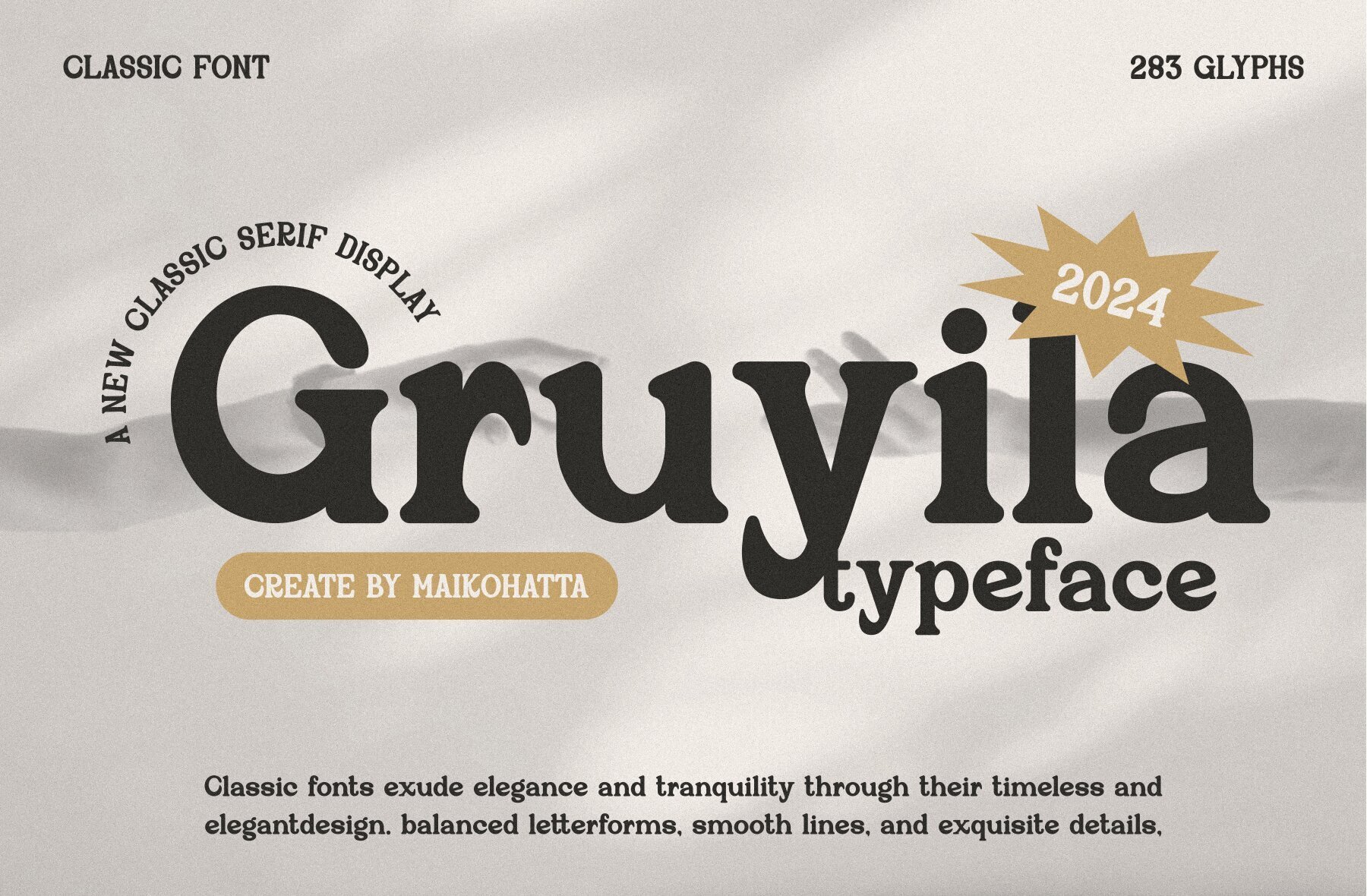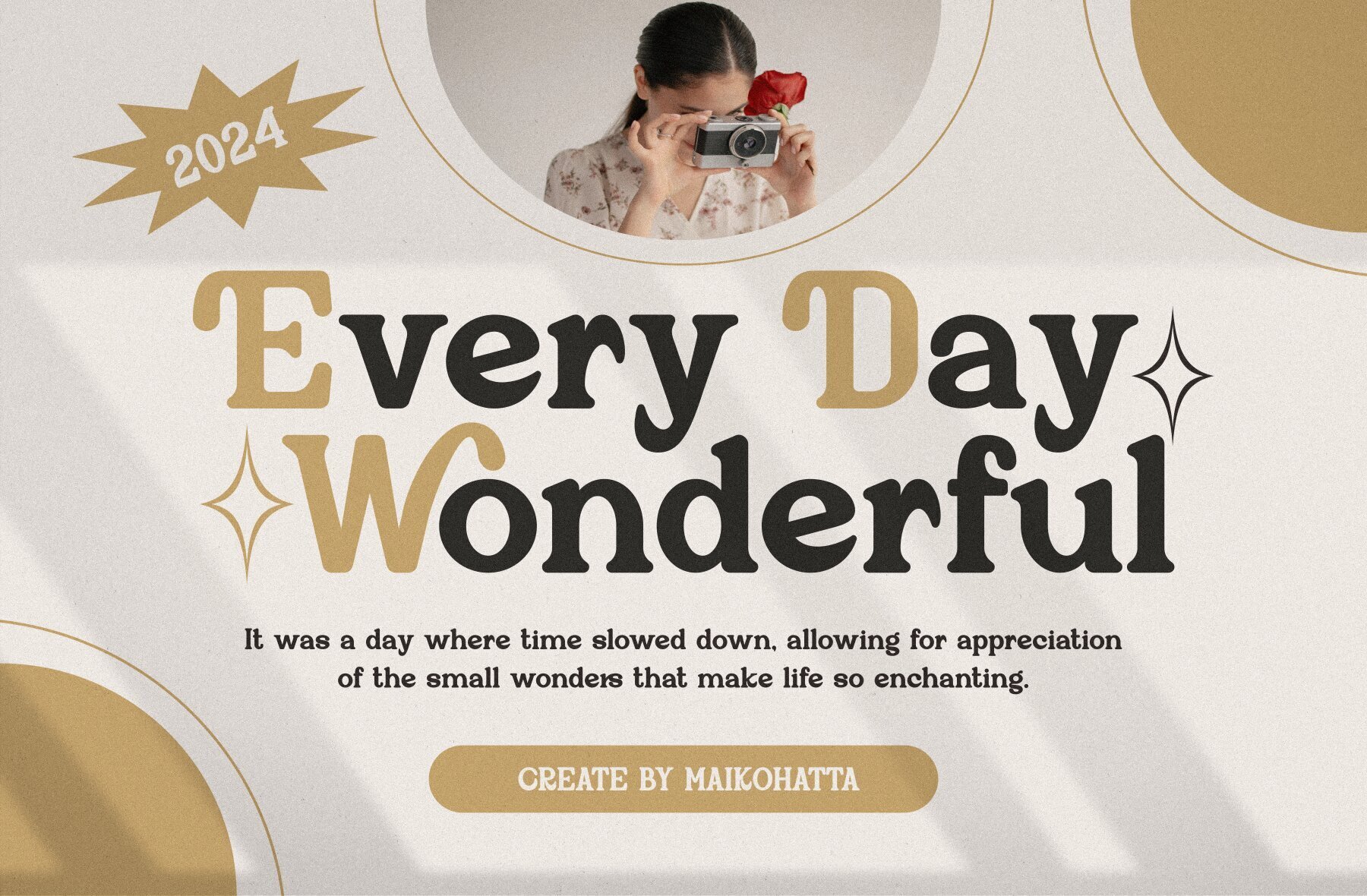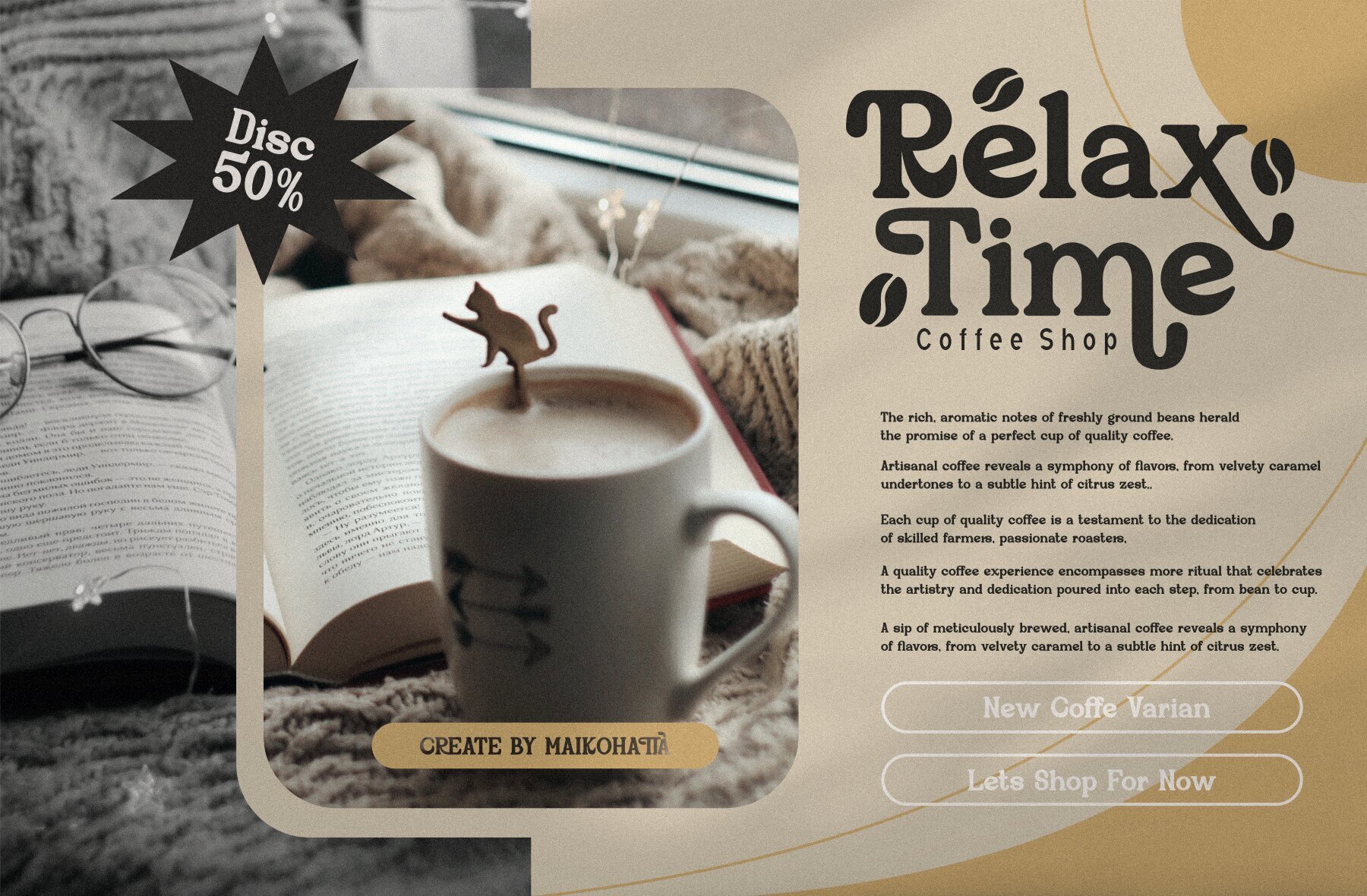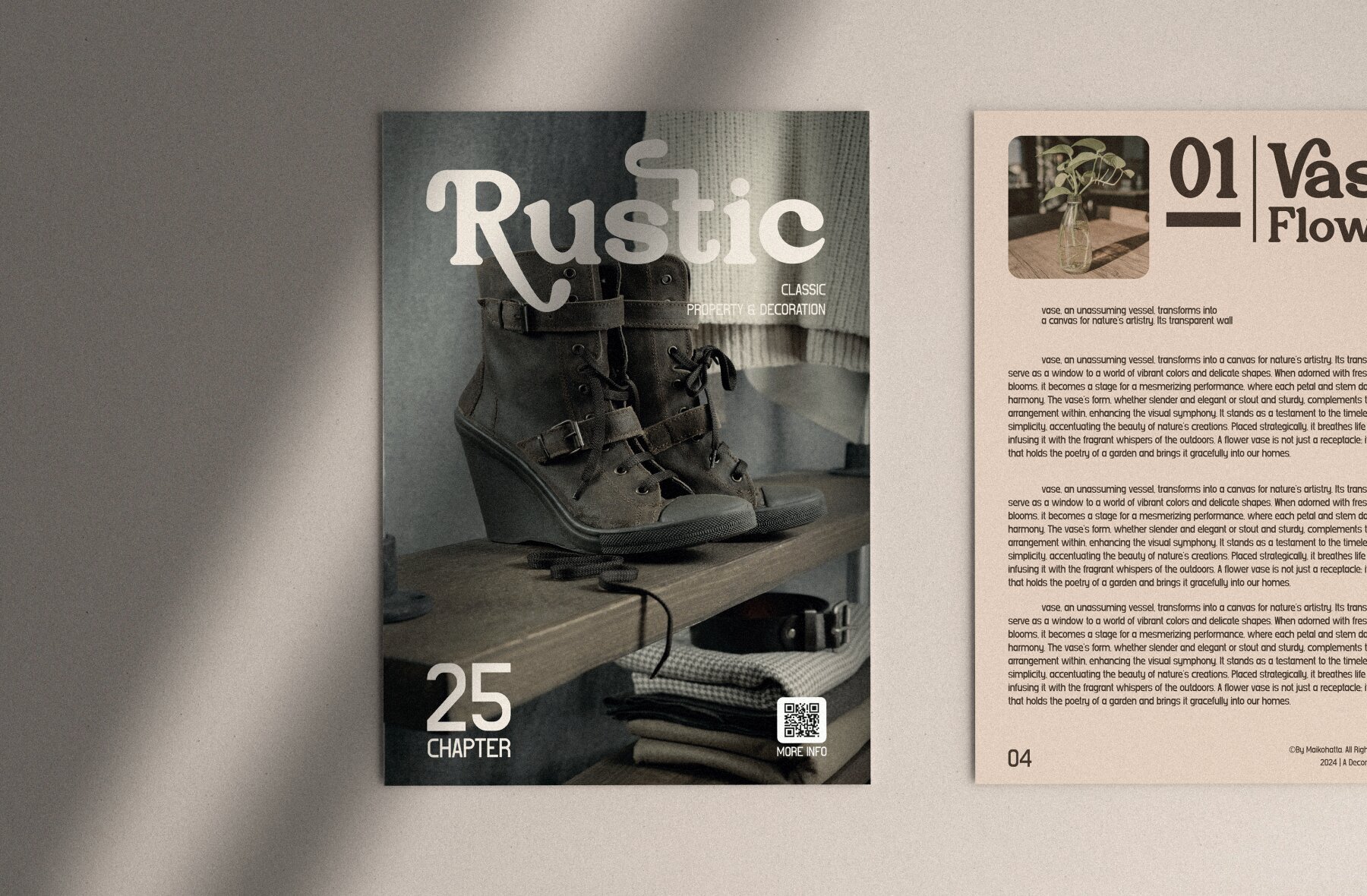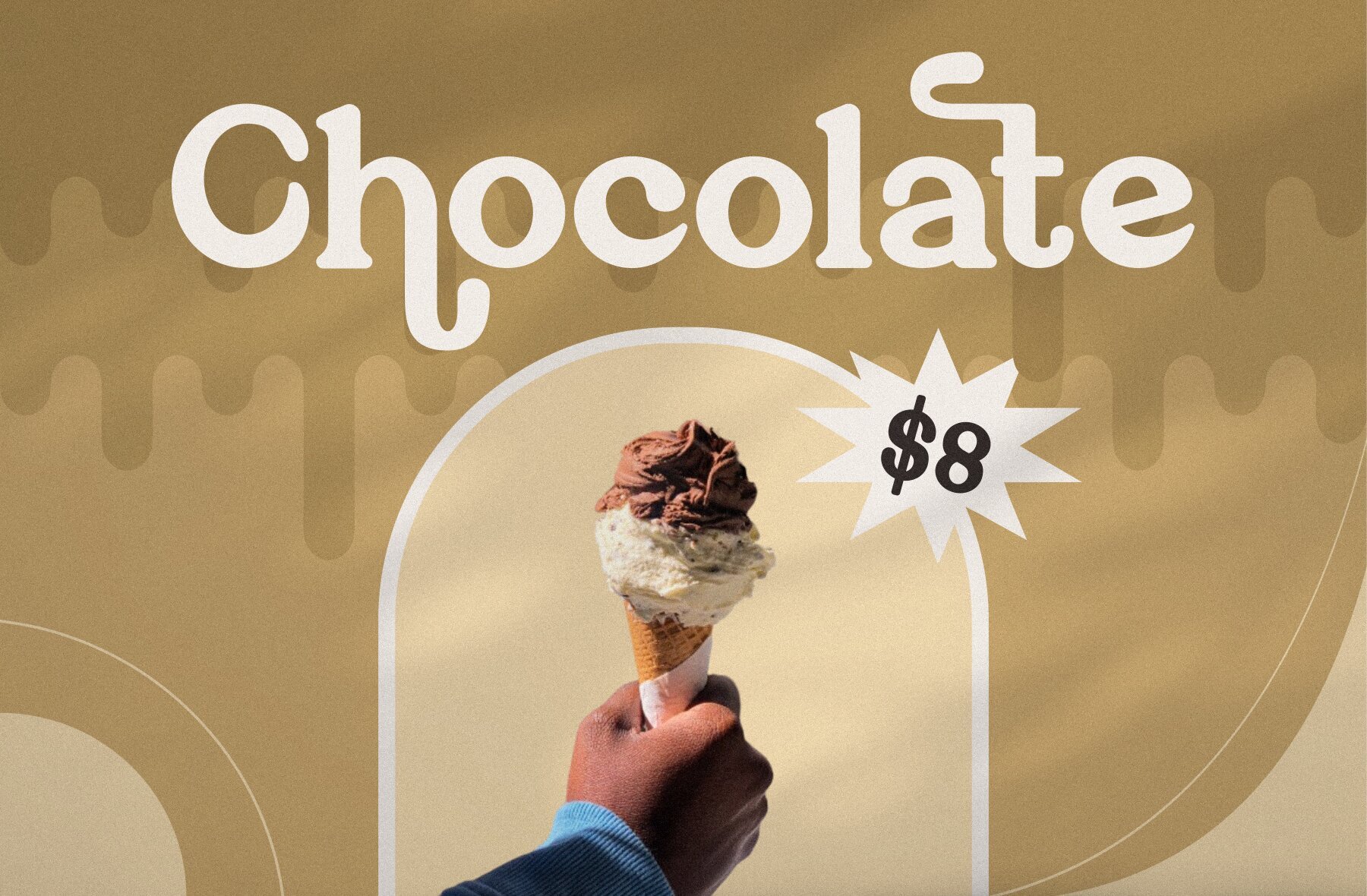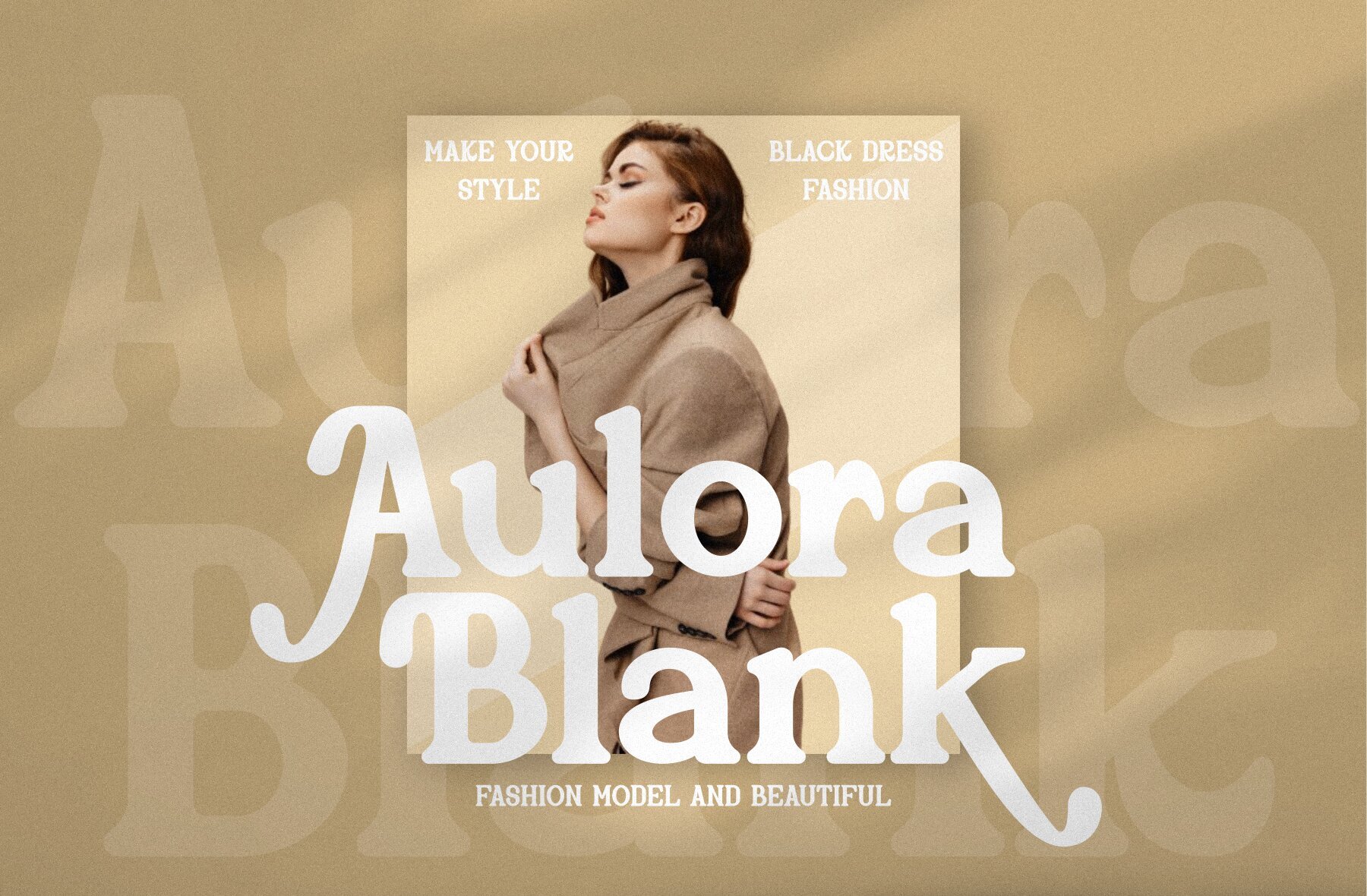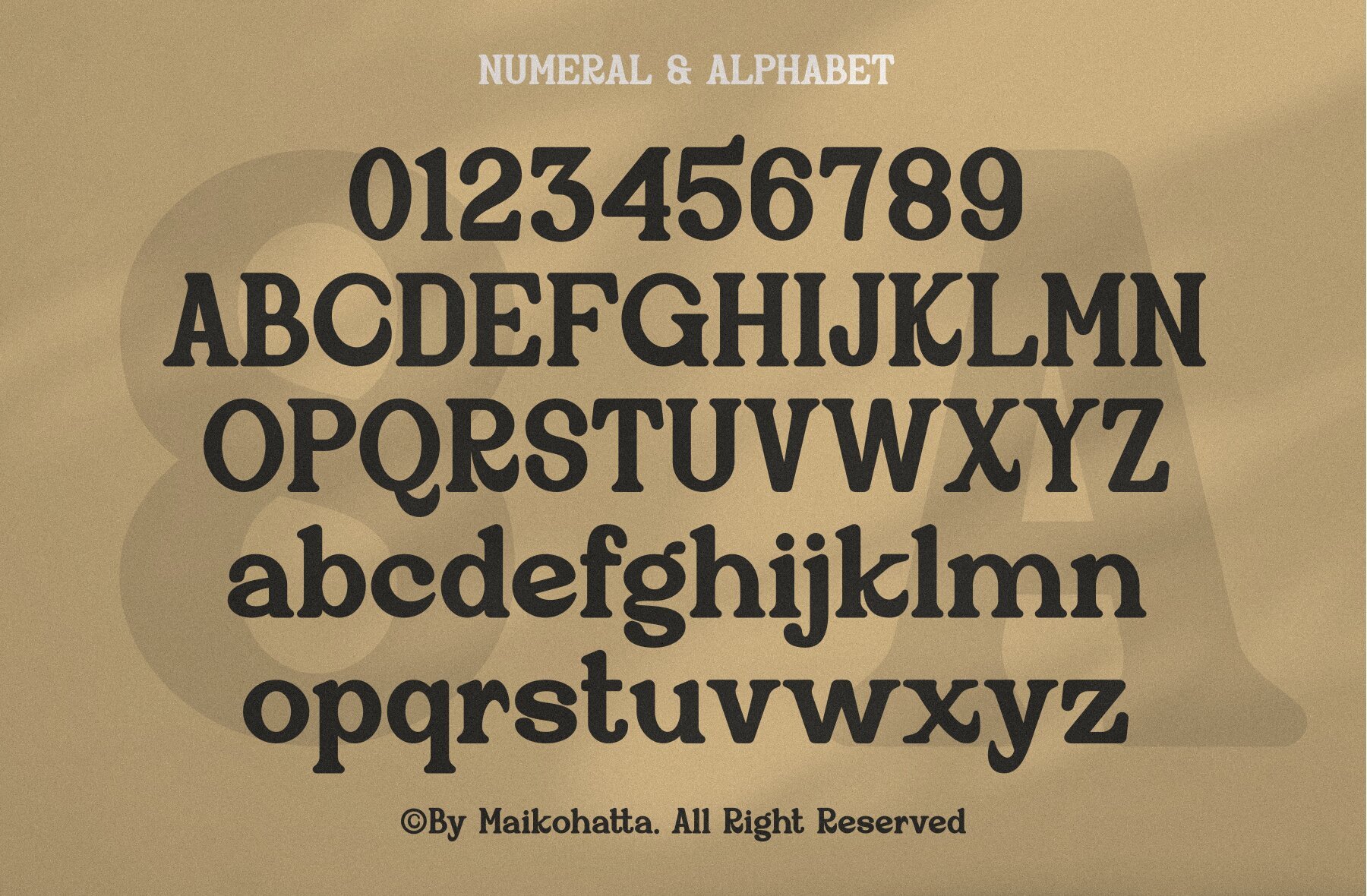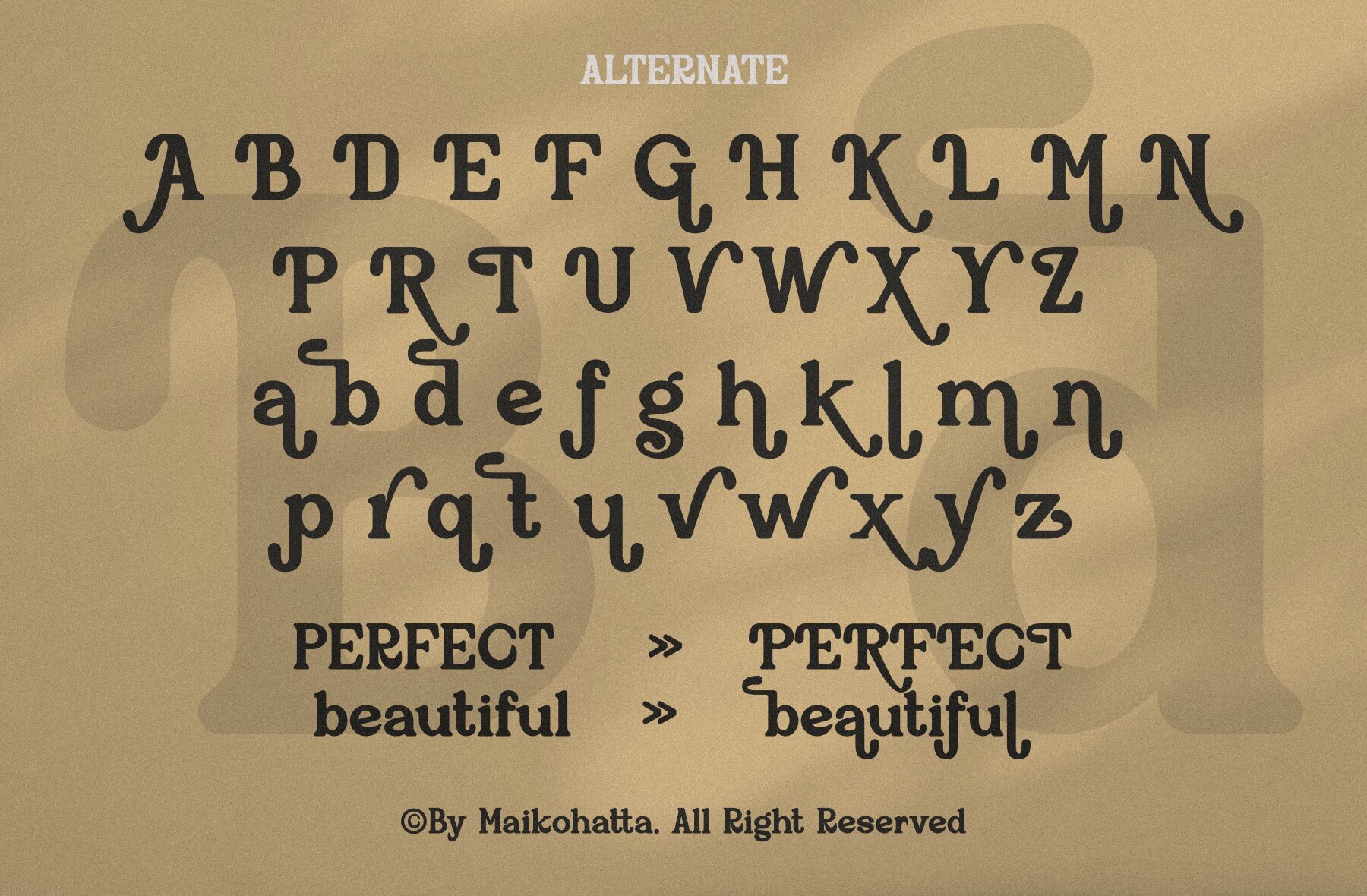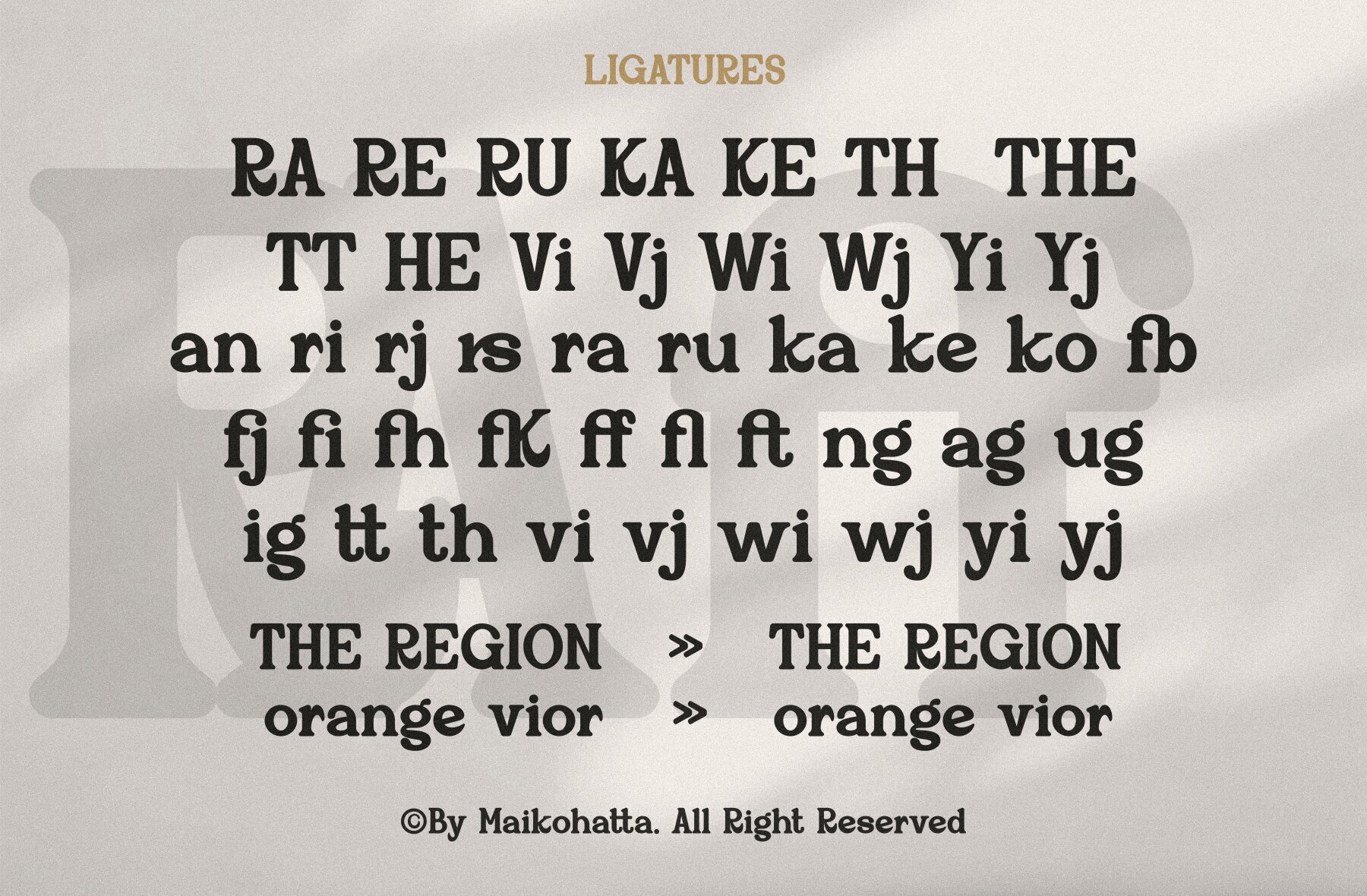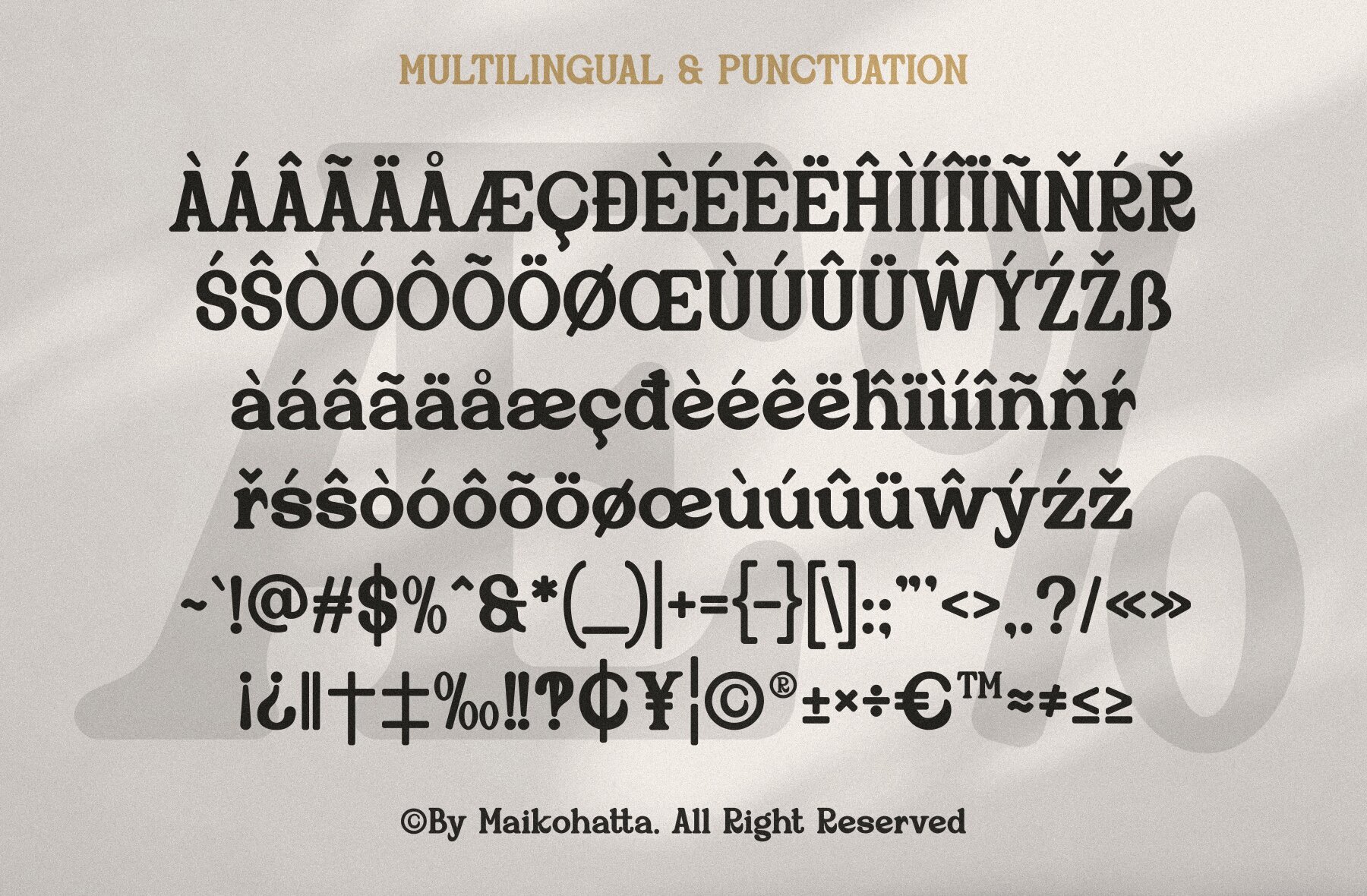
Gruyila Font
Gruyila Regular
Gruyila is a serif typeface that combines classic elegance with modern readability. Featuring decorative projections known as serifs at the ends of its characters, this font provides a sophisticated and formal appearance. It's an excellent choice for printed texts, formal documents, books, and publications requiring clear legibility even at smaller sizes.Gruyila: Classic Serif Typeface with Elegant Projections